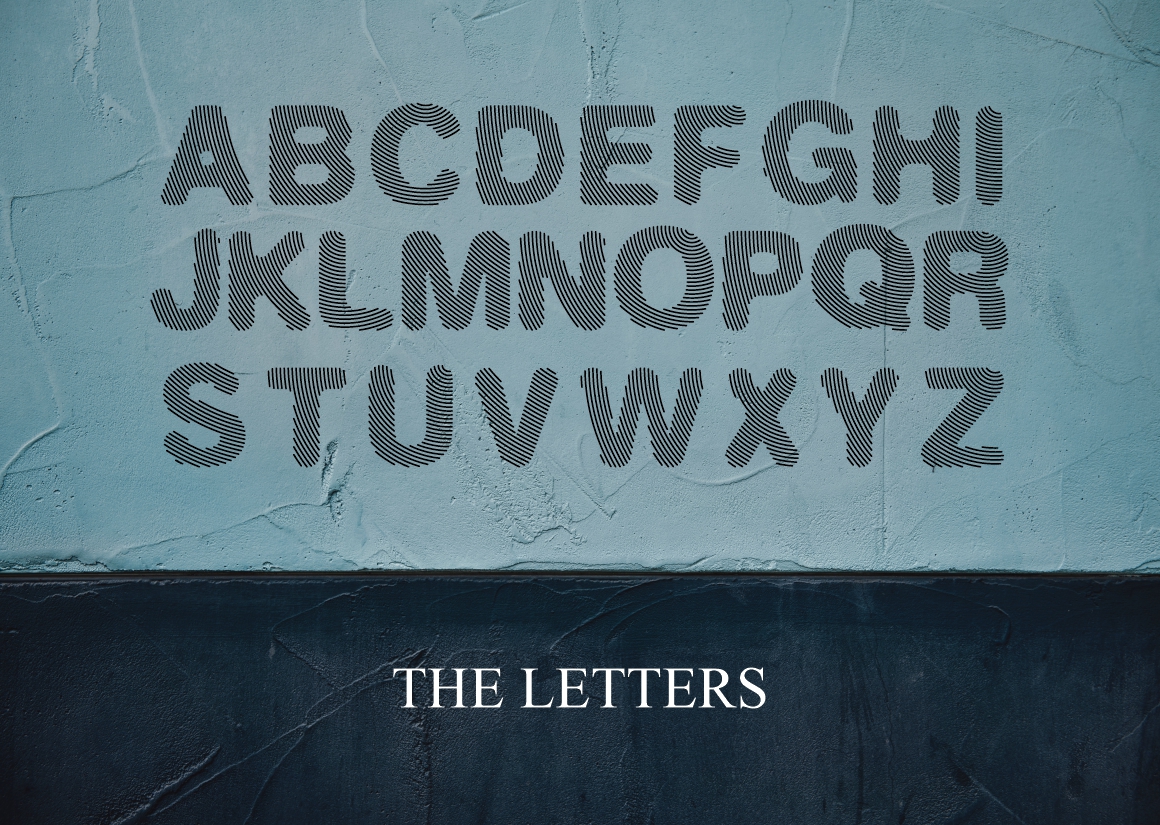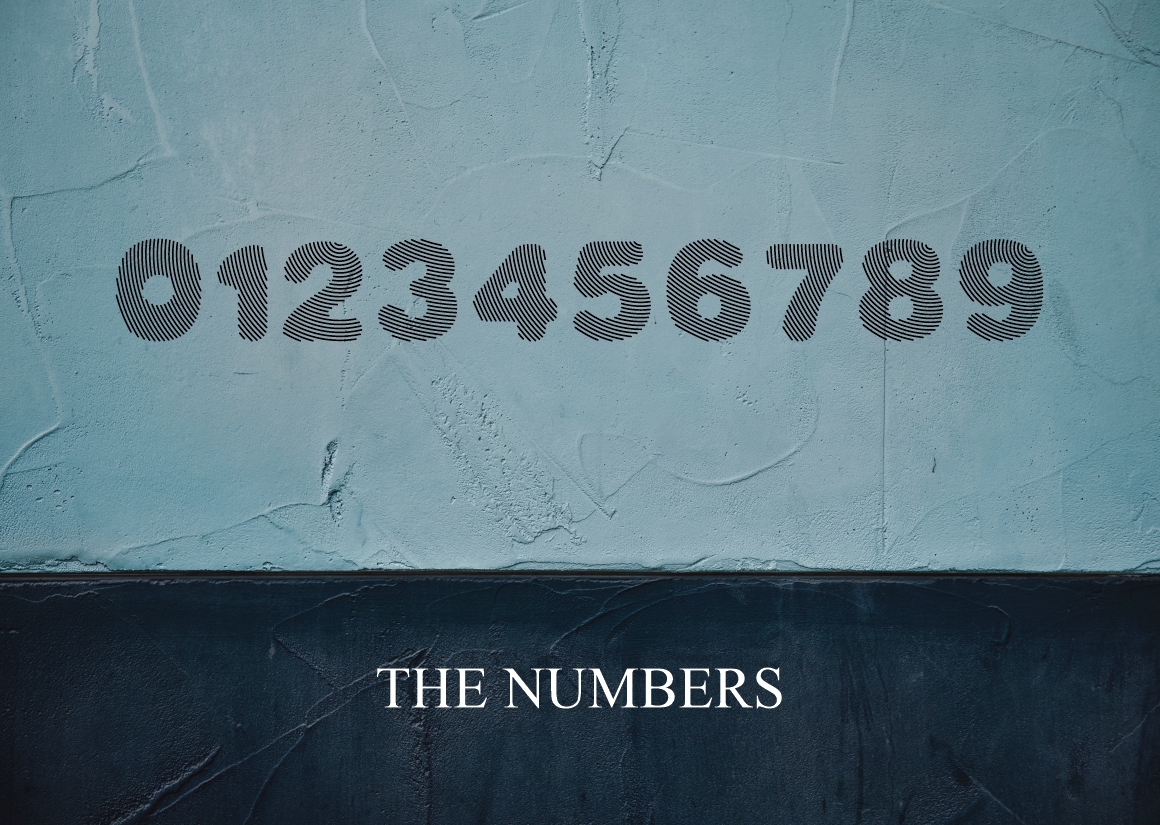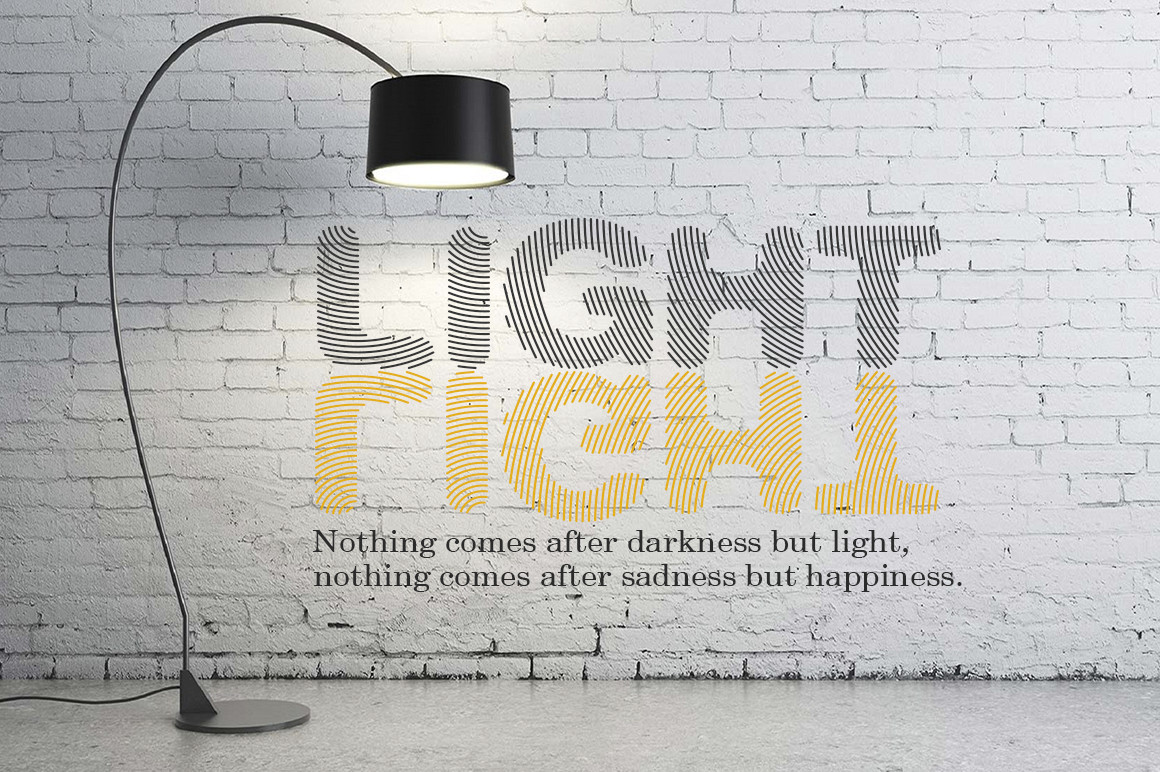
Finger Line Font
Finger Line Display Font
This is a cool and trendy looking display font. No matter the topic, this font will be an incredible asset to your fonts’ library, as it has the potential to elevate any creation.